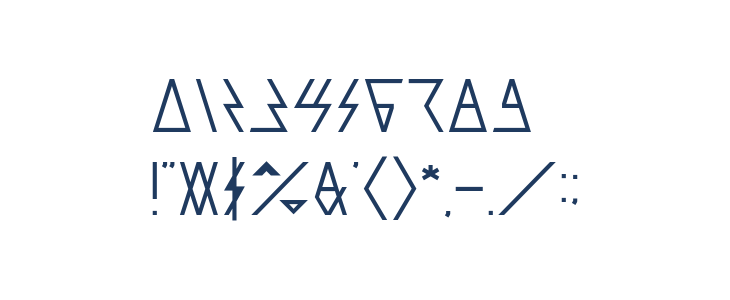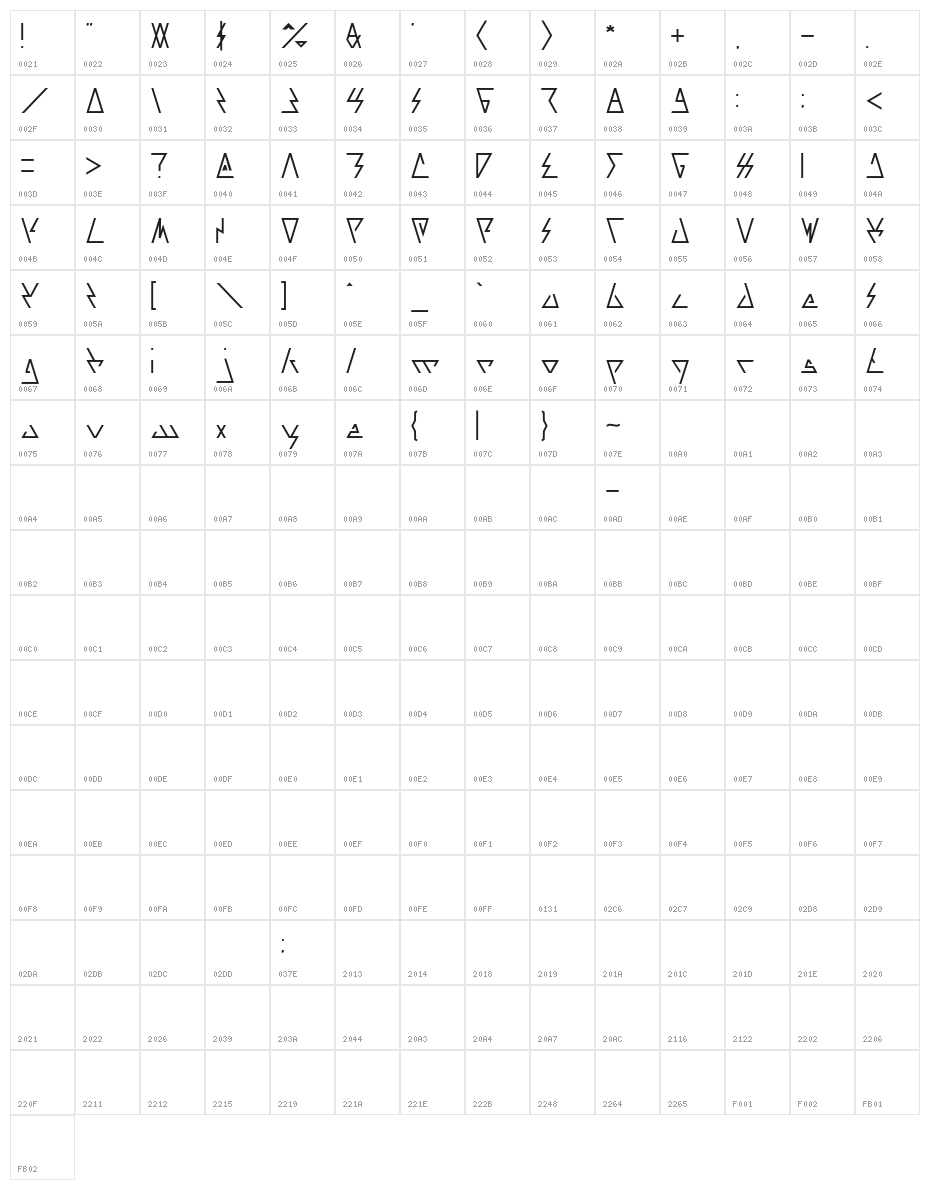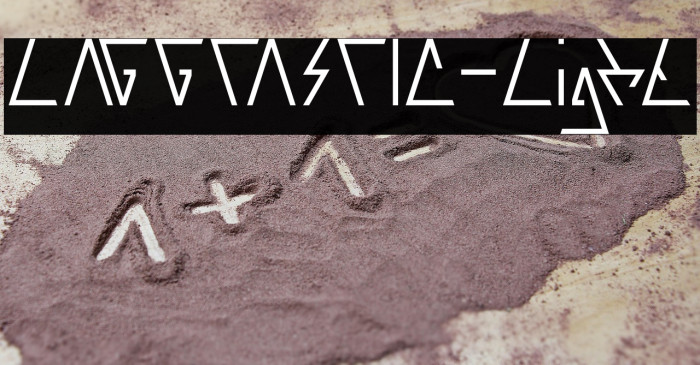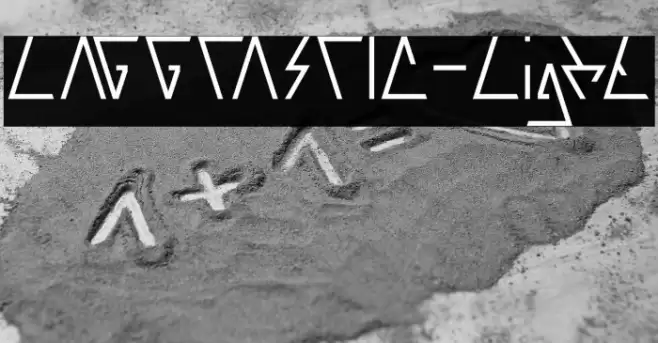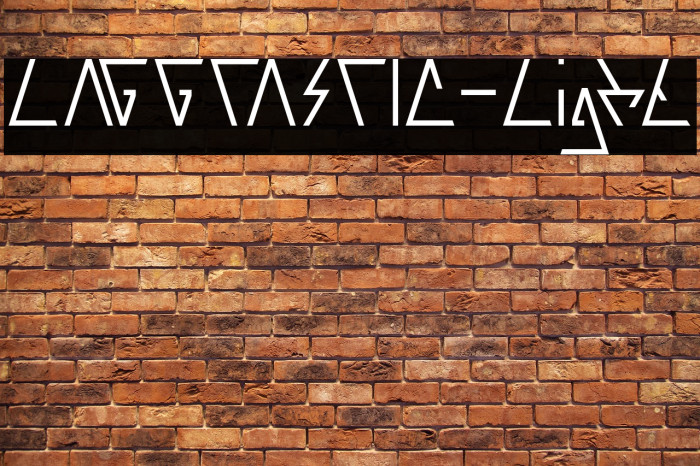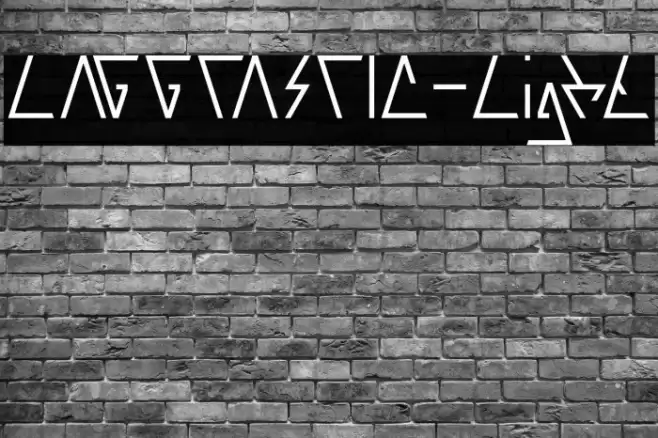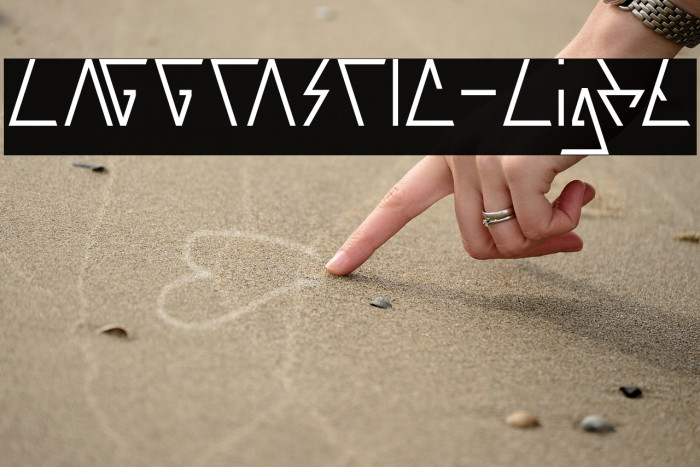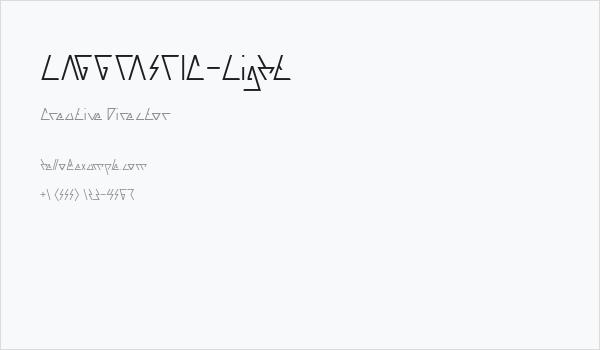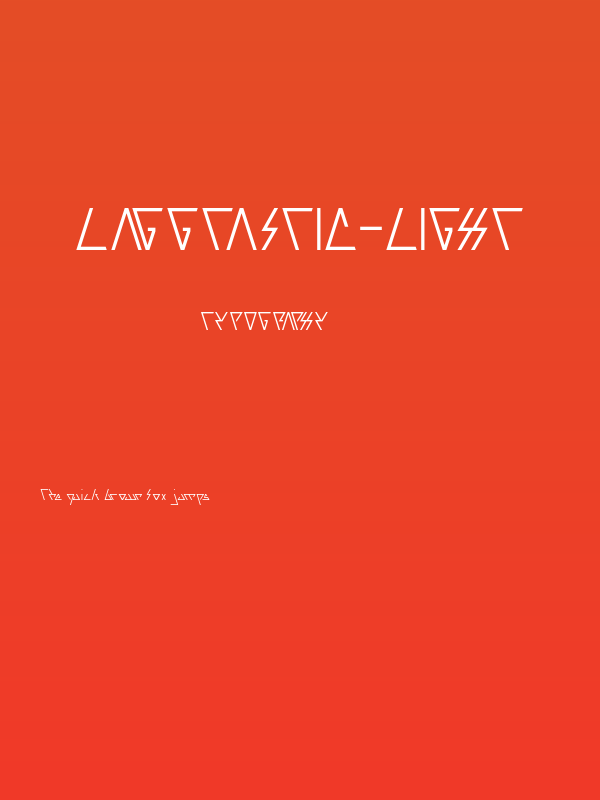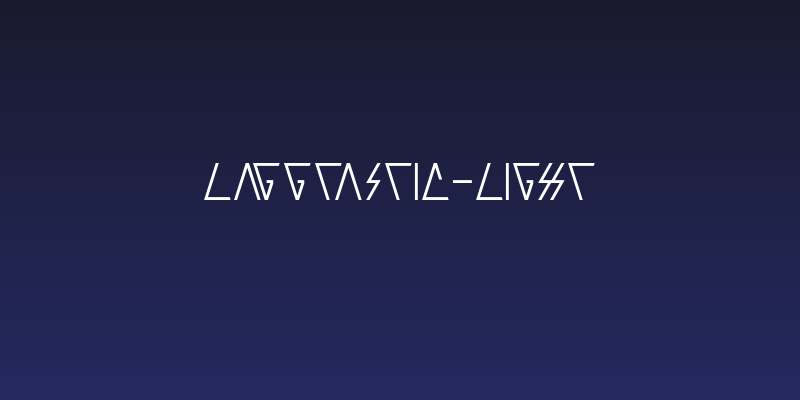
LAGGTASTIC-Light Font
LAGGTASTIC-Light Description
This font features a highly geometric and angular design, characterized by sharp edges and a futuristic aesthetic. The letters are constructed with straight lines and acute angles, giving it a distinct, edgy appearance. The uppercase and lowercase letters share a consistent style, with the lowercase being slightly smaller but maintaining the same angular characteristics. Numbers and special characters follow the same design principles, ensuring uniformity across all glyphs. The overall look is modern and somewhat abstract, making it suitable for creative and unconventional projects.
| Proposed Projects | Ideal for sci-fi themed designs, video game graphics, modern art projects, and branding for tech companies. |